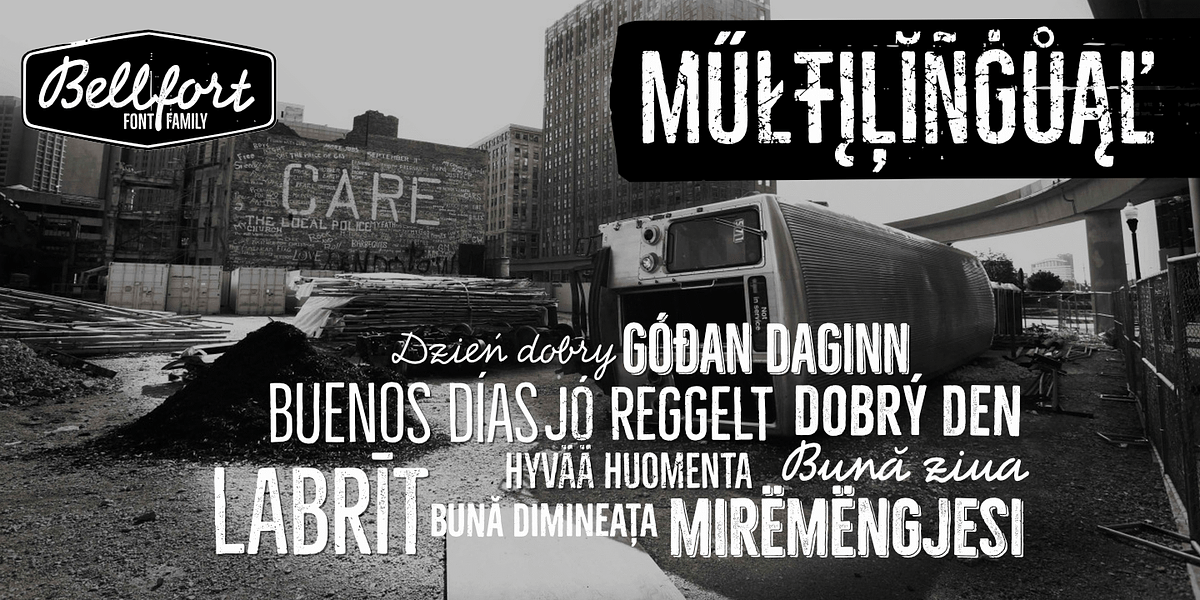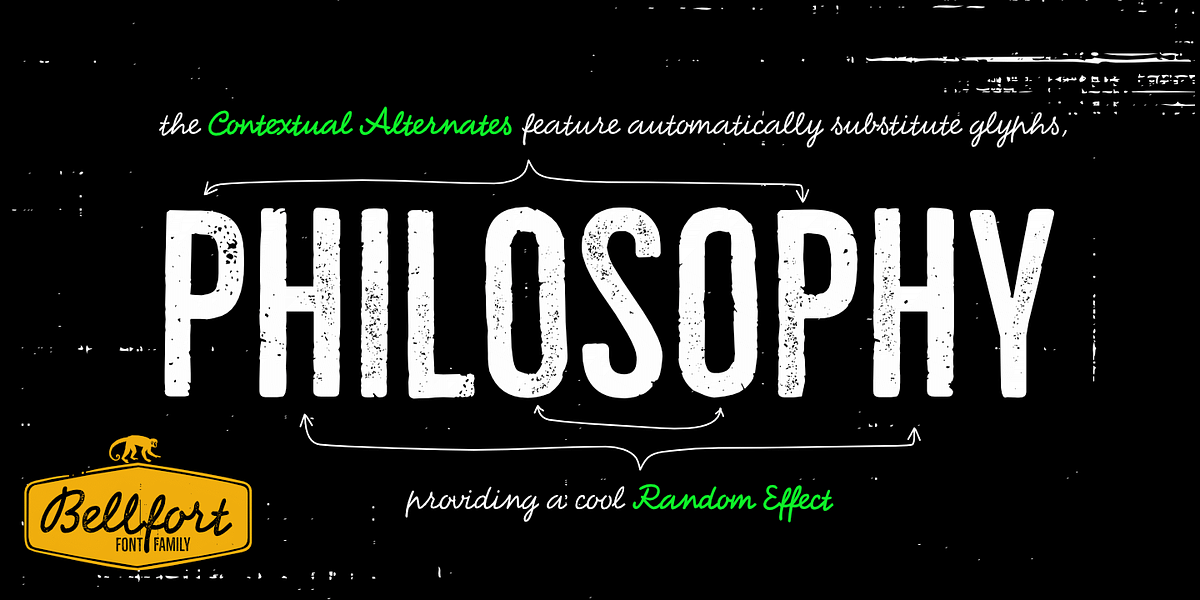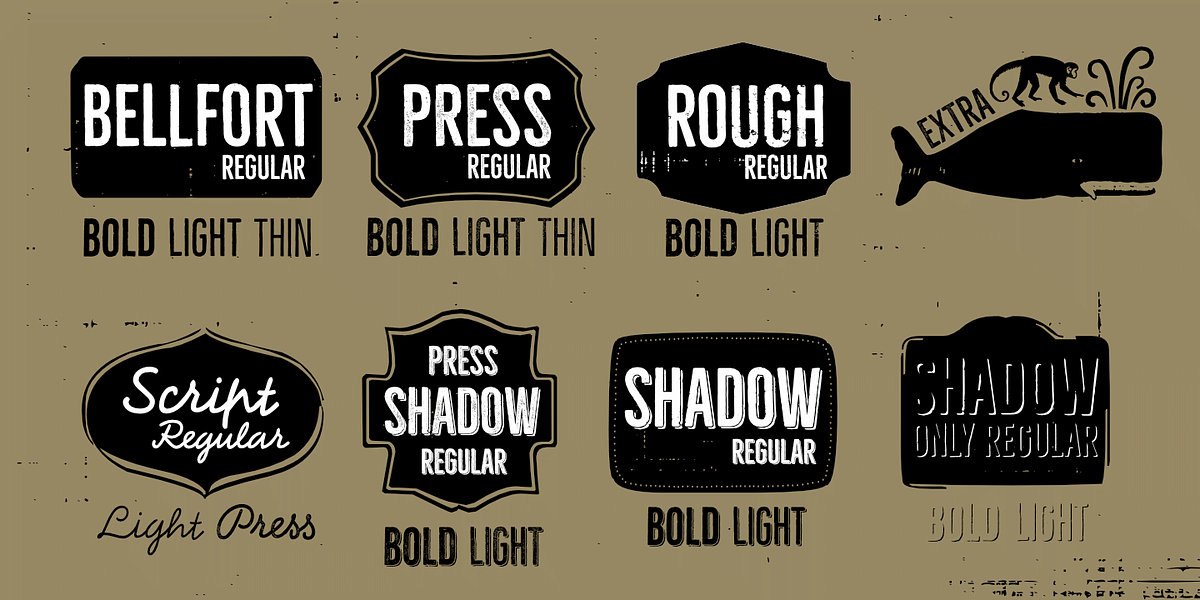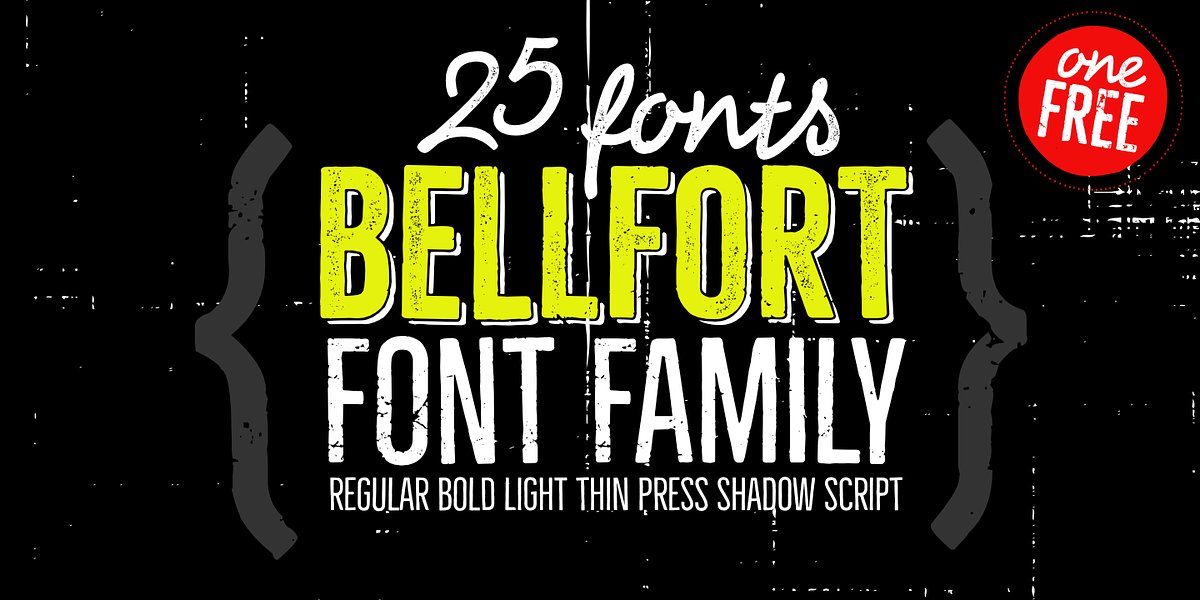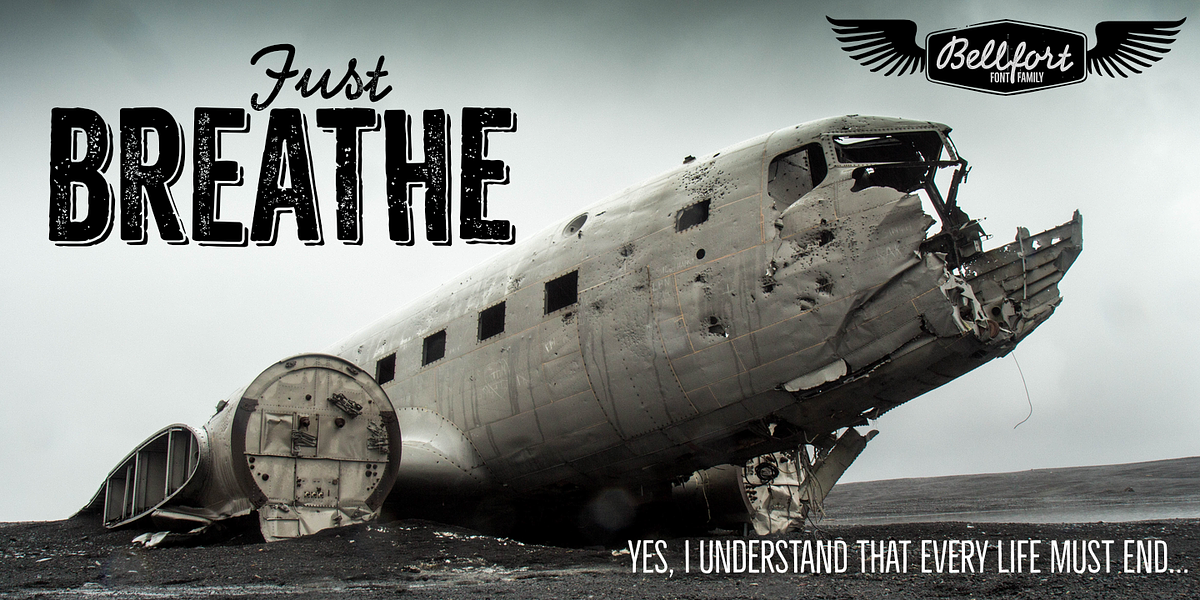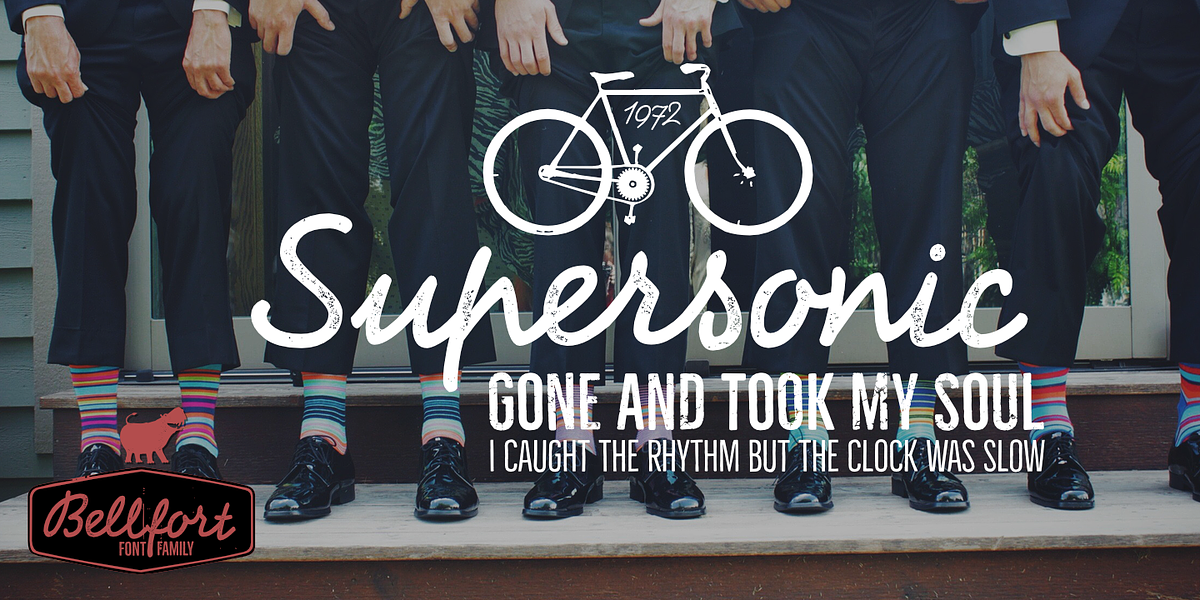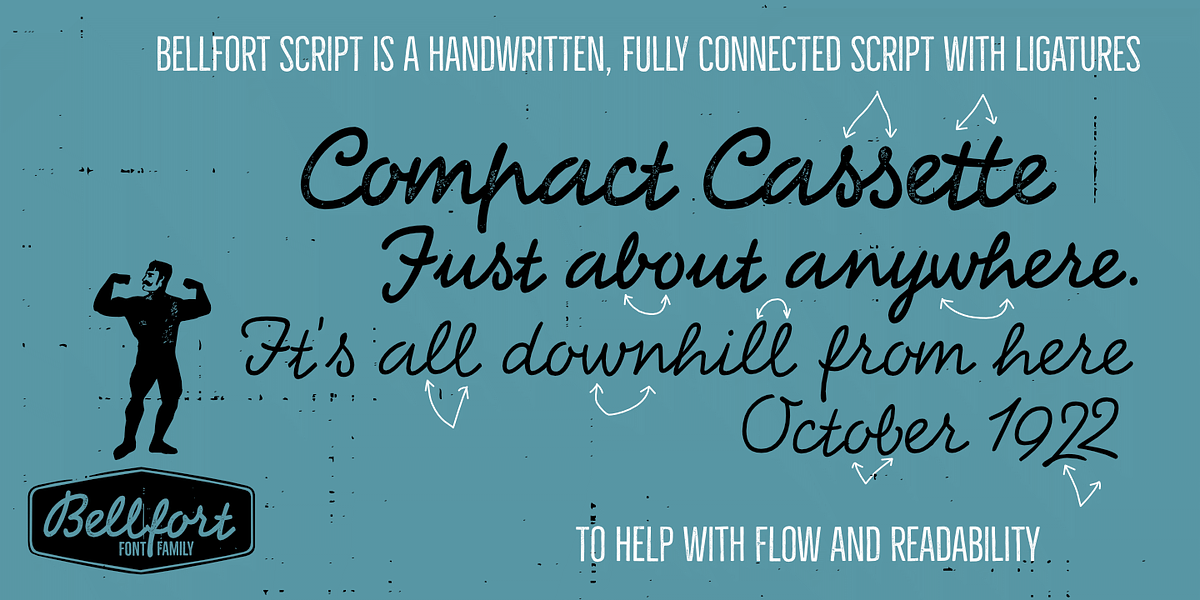
Bellfort
The Bellfort font family is a versatile handwritten script typeface. It offers seven sub-families including 'Rough,' 'Shadow,' and 'Press' variants. Each sub-family includes up to four weights, providing flexibility for different design applications. 7 sub-families (Regular, Rough, Press, Shadow, Press Shadow, Shadow Only, Script). The font excels at creating a grunge aesthetic with its distressed look and hand-drawn feel. It is designed for display purposes and would be suitable for branding, posters, and headlines.